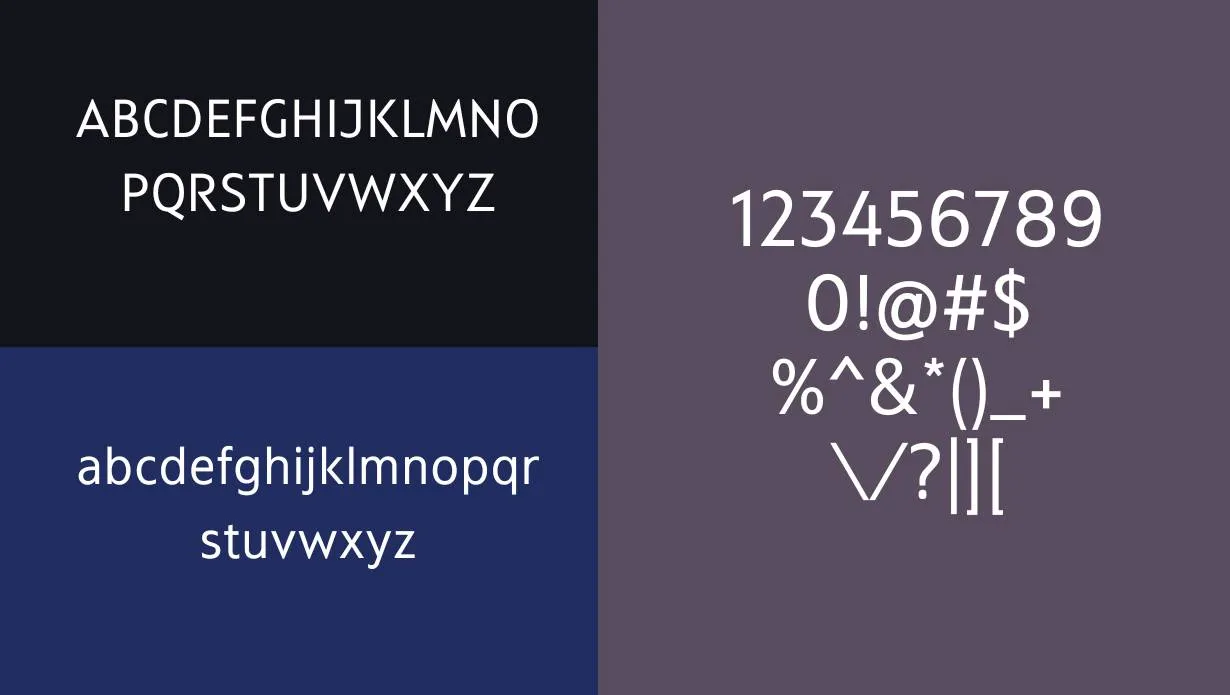
Simbal Font is a playful and friendly typeface known for its whimsical and lively appearance. Its flowing design and cheerful elements make it a popular choice for children’s books, posters, and creative projects.
| Name | Simbal Font |
| Designer | Svetlin Balezdrov and Svetoslav Simov |